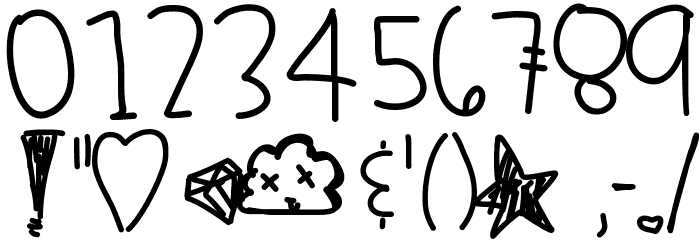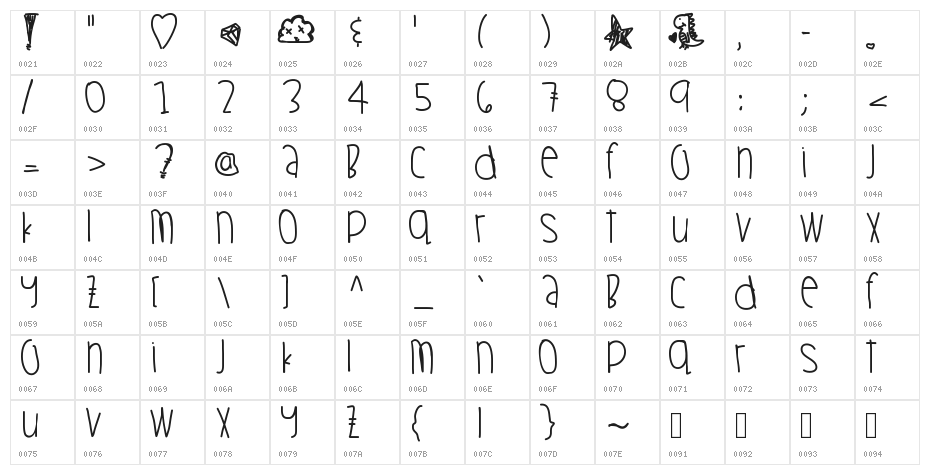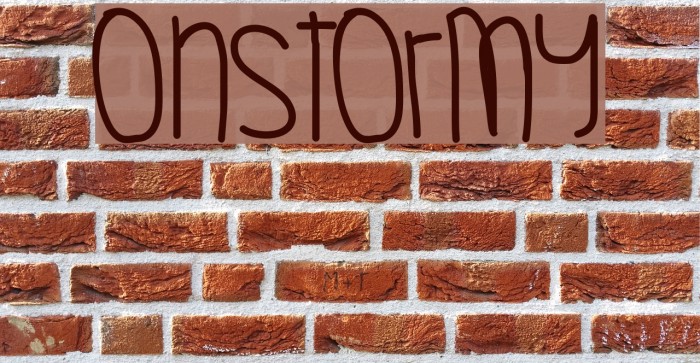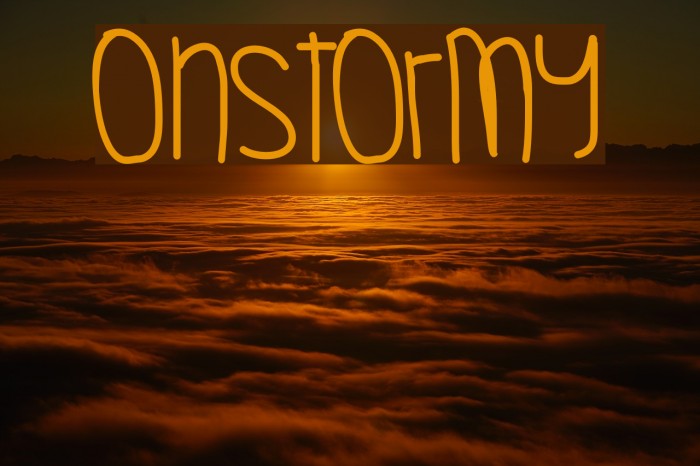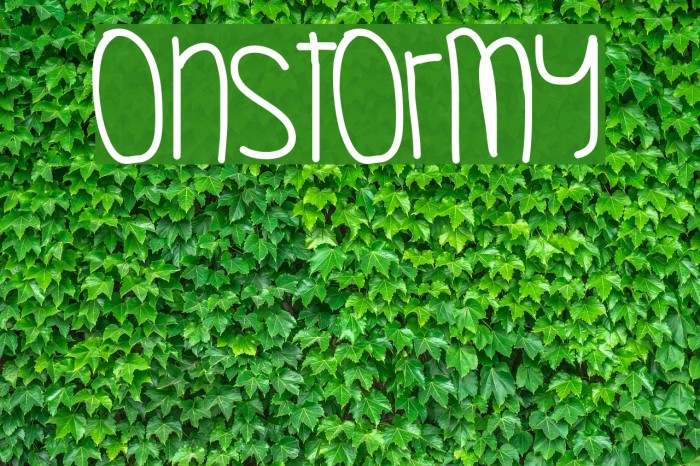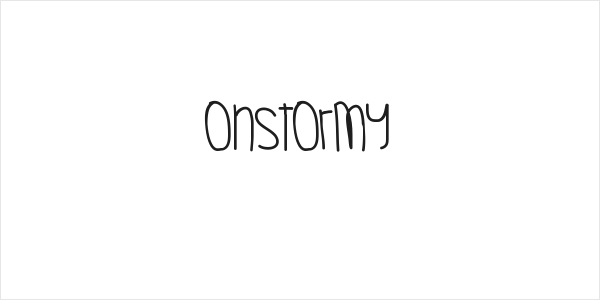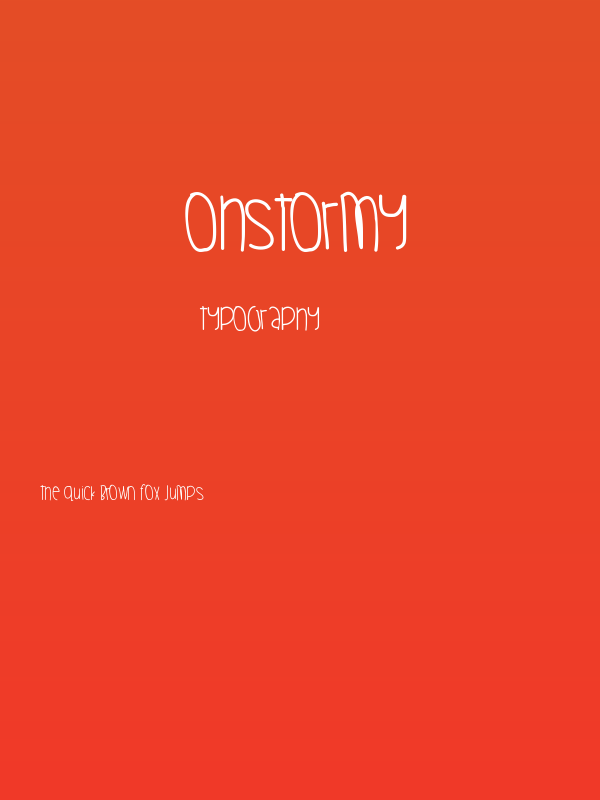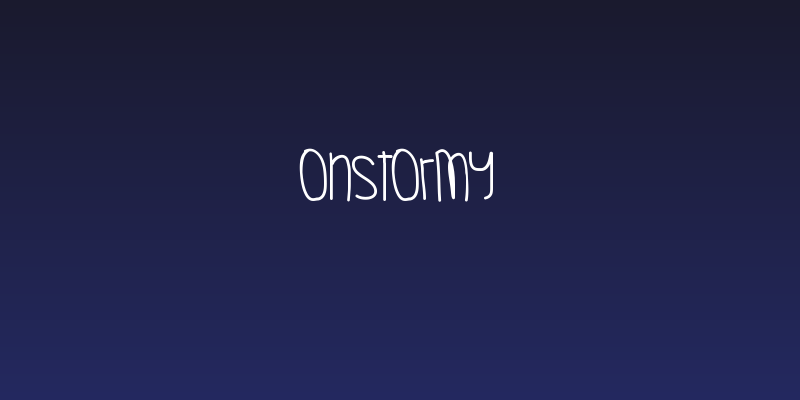
OhStormy Font
OhStormy Description
This font features a playful and whimsical handwritten style, characterized by its tall, narrow letters and slightly irregular strokes. The uppercase and lowercase letters maintain a consistent height, creating a uniform appearance. The numerals are distinct and maintain the same playful aesthetic, while the special characters add a touch of creativity with their unique designs. The overall look is casual and friendly, making it suitable for projects that require a personal touch.
| Proposed Projects | Ideal for children's books, greeting cards, playful branding, and creative posters. |